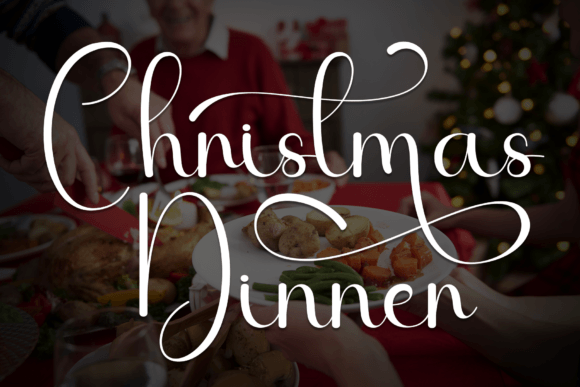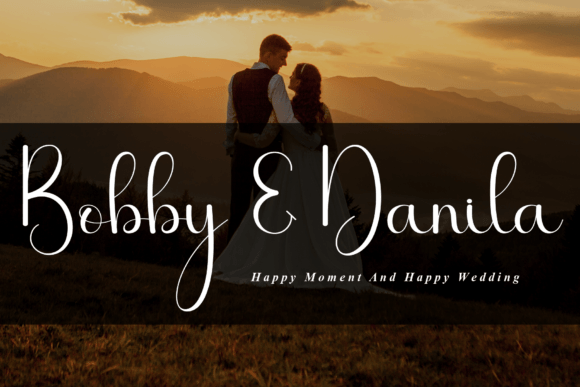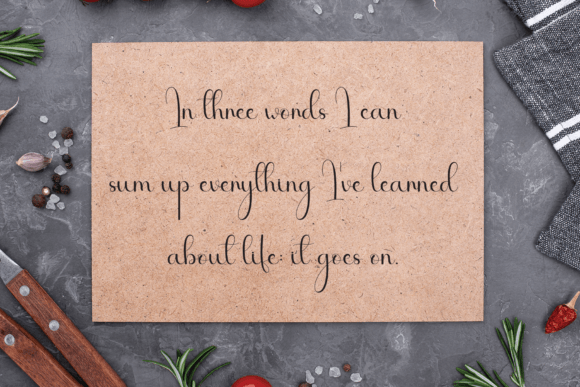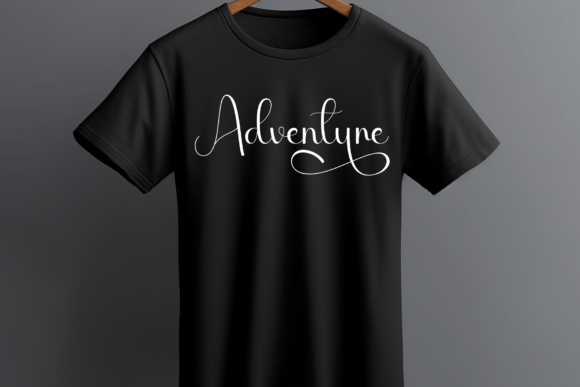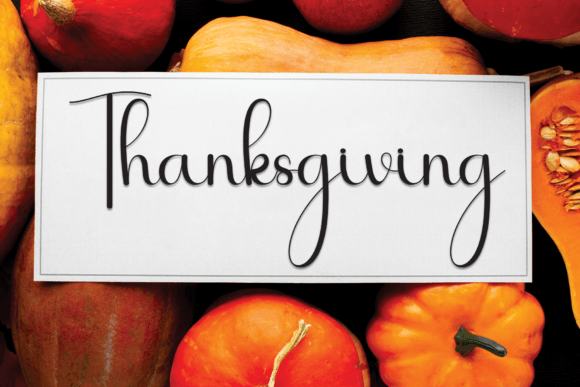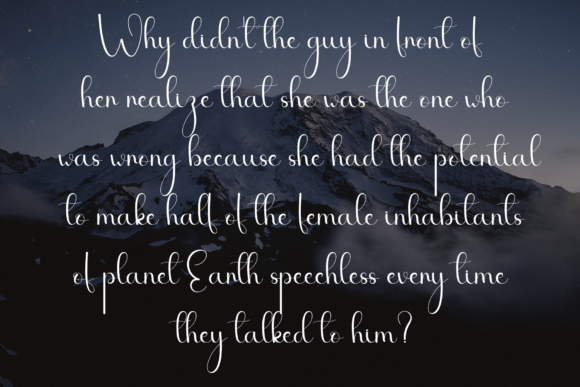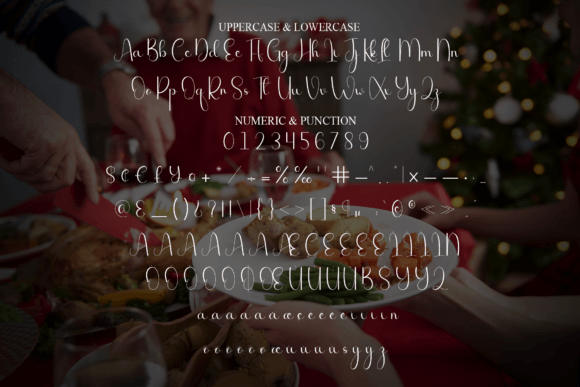
As the holiday season approaches, I’m reminded of the countless hours spent designing festive invitations and cards for loved ones. There’s something special about crafting a personalized message that captures the warmth and joy of the season. This year, I’m excited to share with you a delightful discovery that’s sure to make your designs shine: Christmas Dinner Font.
Infused with a playful spirit, this charming handwritten display font is perfect for adding a dash of whimsy to your creative projects. Whether you’re crafting wedding invitations, endearing cards, or any design project that calls for a sprinkle of fun, Christmas Dinner Font is sure to bring a smile to your face. As a designer, you know the value of a well-chosen font in elevating your work. With Christmas Dinner Font, you’ll be able to create designs that are both elegant and playful – a true holiday treasure.
Key Features of Christmas Dinner Font
- Font Family: Christmas Dinner is a display font, available in 4 font styles: Regular, Italic, Bold, and Bold Italic.
- Unique Characteristics: Features a festive, hand-drawn design with intricate details, perfect for adding a touch of holiday cheer to designs and projects.
Designer Review: Christmas Dinner Font
First off, I want to say that I love the festive and playful vibe of Christmas Dinner Font. The font is full of charm and character, perfect for holiday-themed projects, greeting cards, and packaging. ✨ The ornaments and decorations that come with the font are well-designed and add a lot of visual interest. ✨ I also appreciate the variety of styles and weights available, making it easy to customize and create different looks.
While I love the overall design, there are a few limitations that might be a concern for some users. ⚠️ The font is not particularly legible at smaller sizes, and some of the ornaments and decorations can be a bit too bold or overpowering. ⚠️ Additionally, the font is not suitable for body text, as it can be too distracting and overwhelming.
Overall, I think Christmas Dinner Font is a great choice for holiday-themed projects and designs. While it has some limitations, its playful and festive vibe makes it a standout option. I would recommend it for anyone looking to add some holiday cheer to their designs.
- Festive and playful vibe
- Well-designed ornaments and decorations
- Variety of styles and weights available
- Not suitable for body text
- Legibility issues at smaller sizes
Christmas Dinner Font: A Practical Application Guide